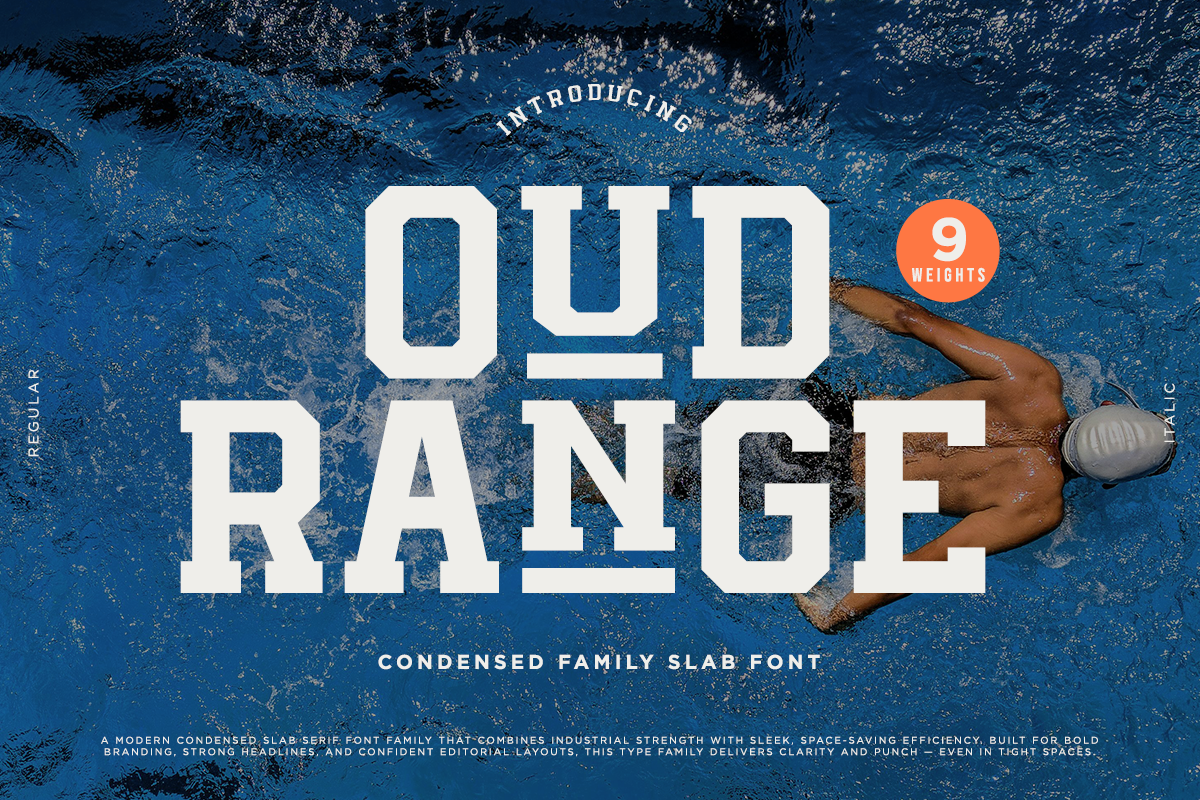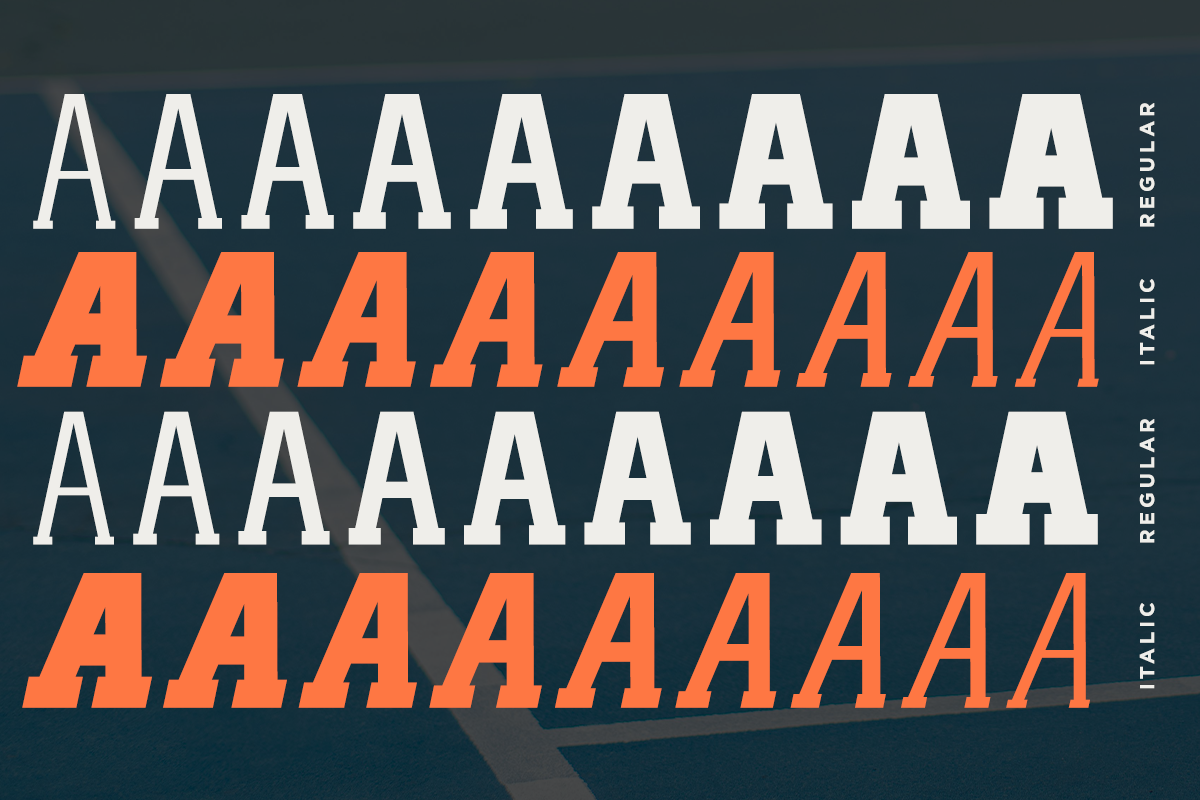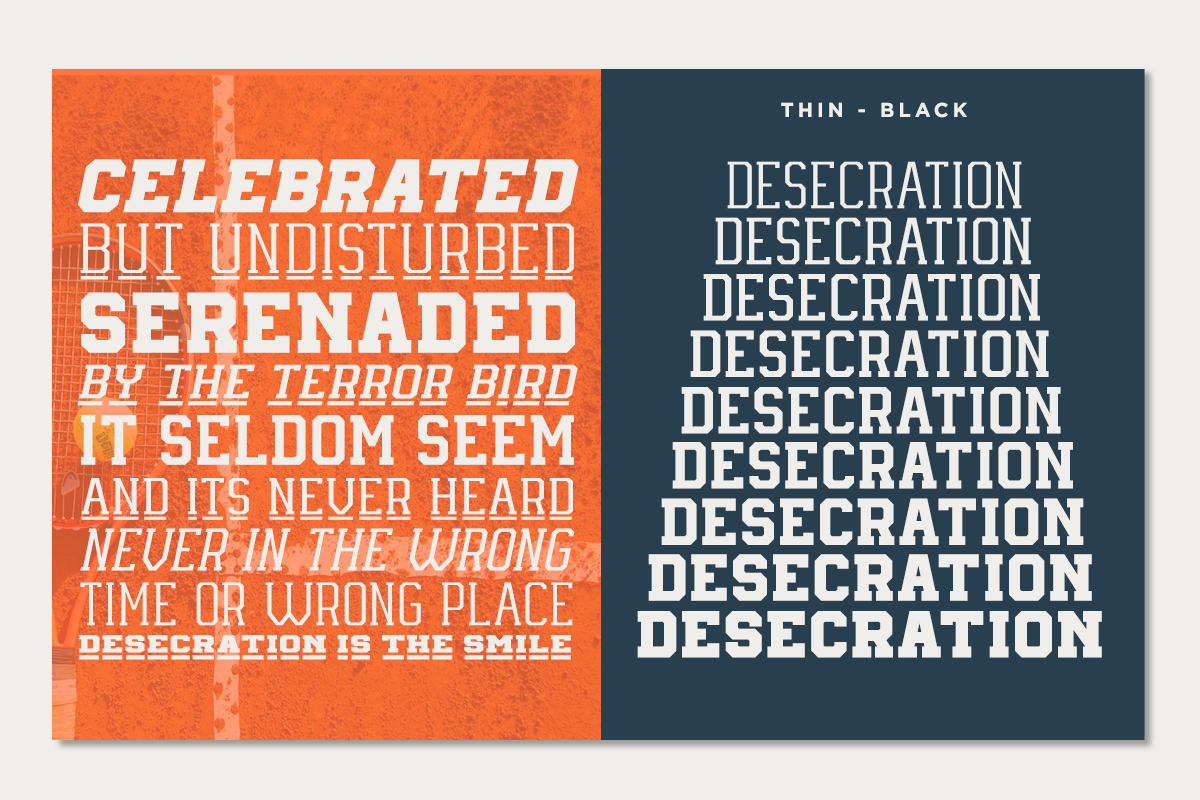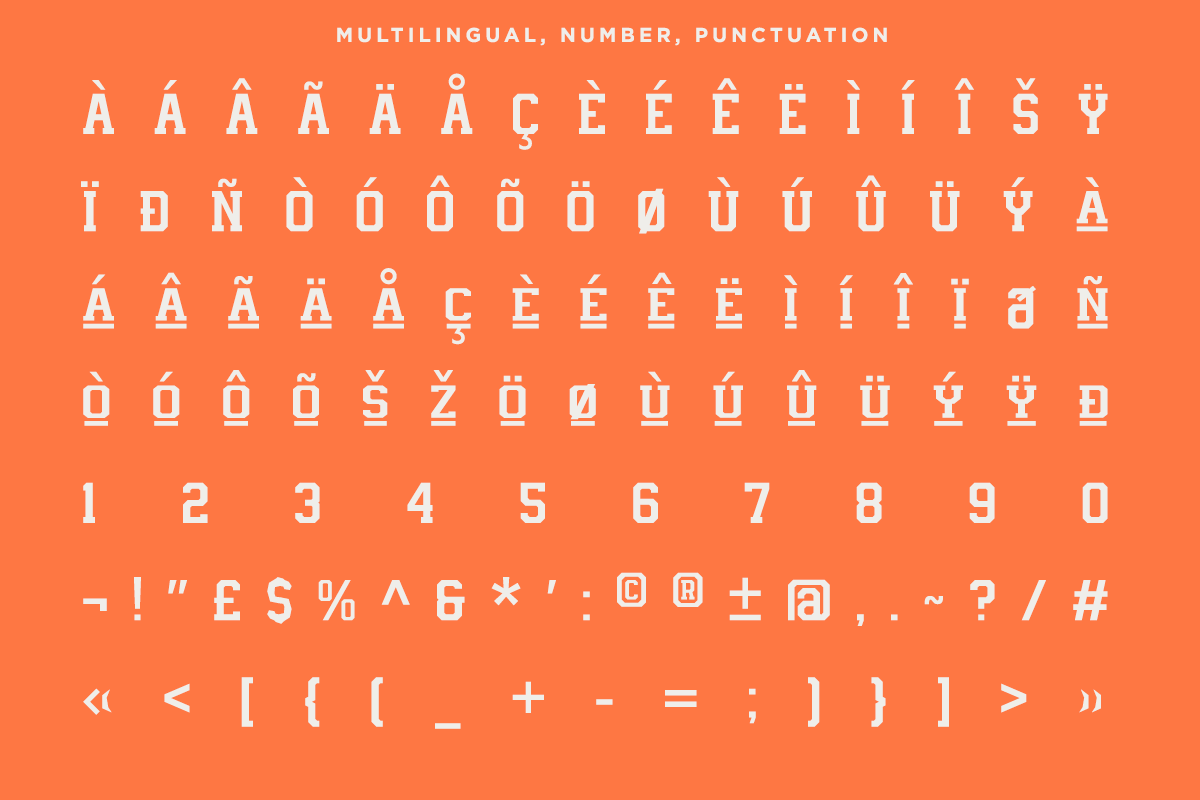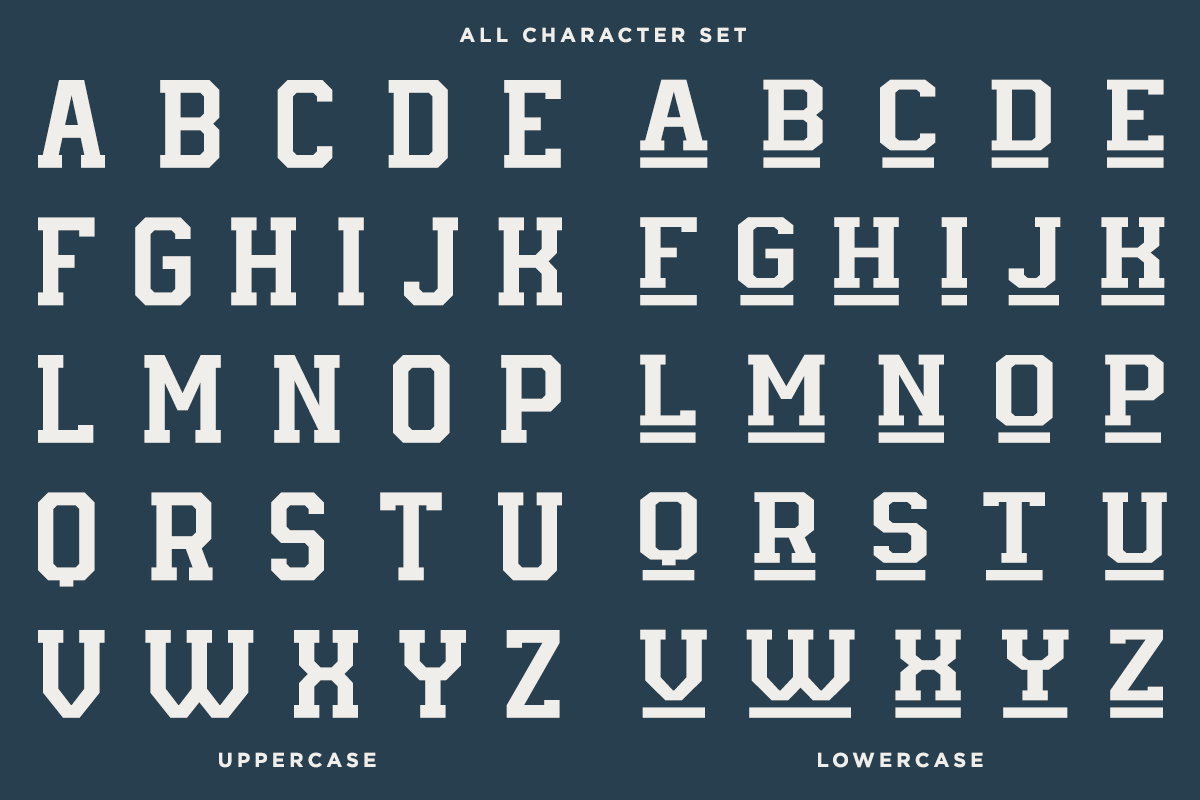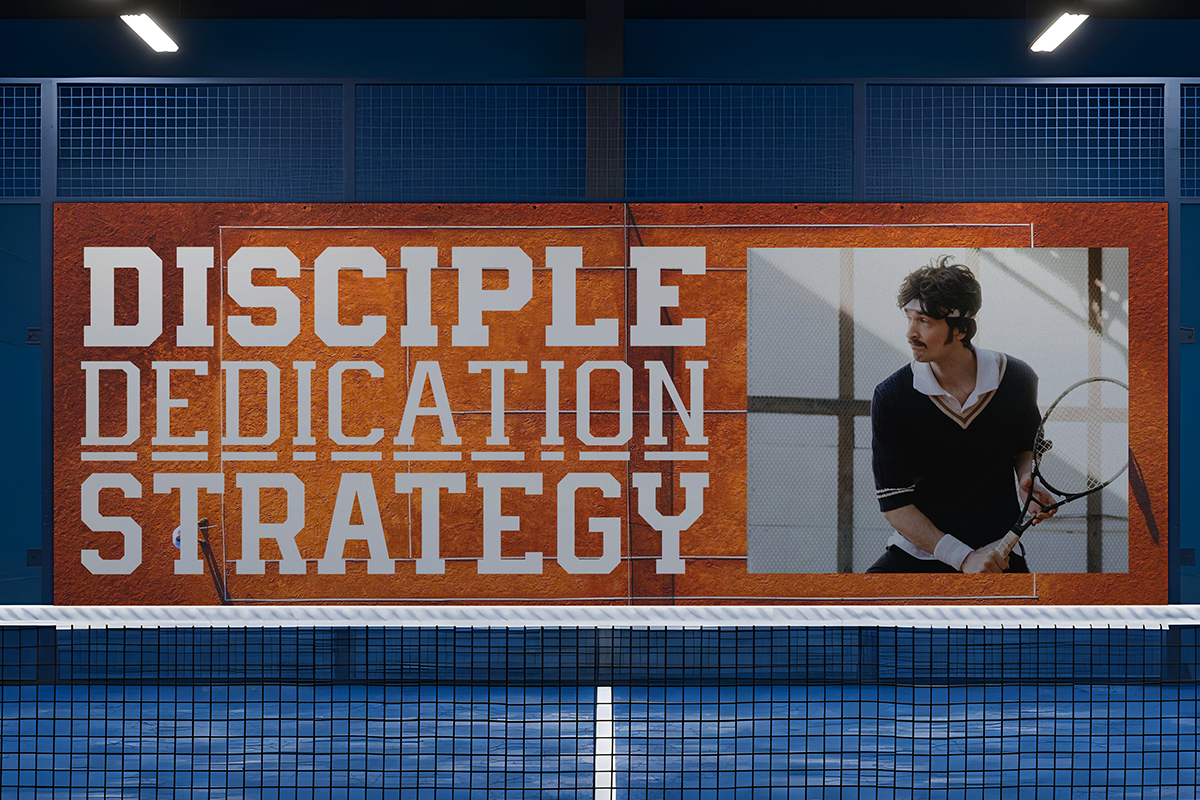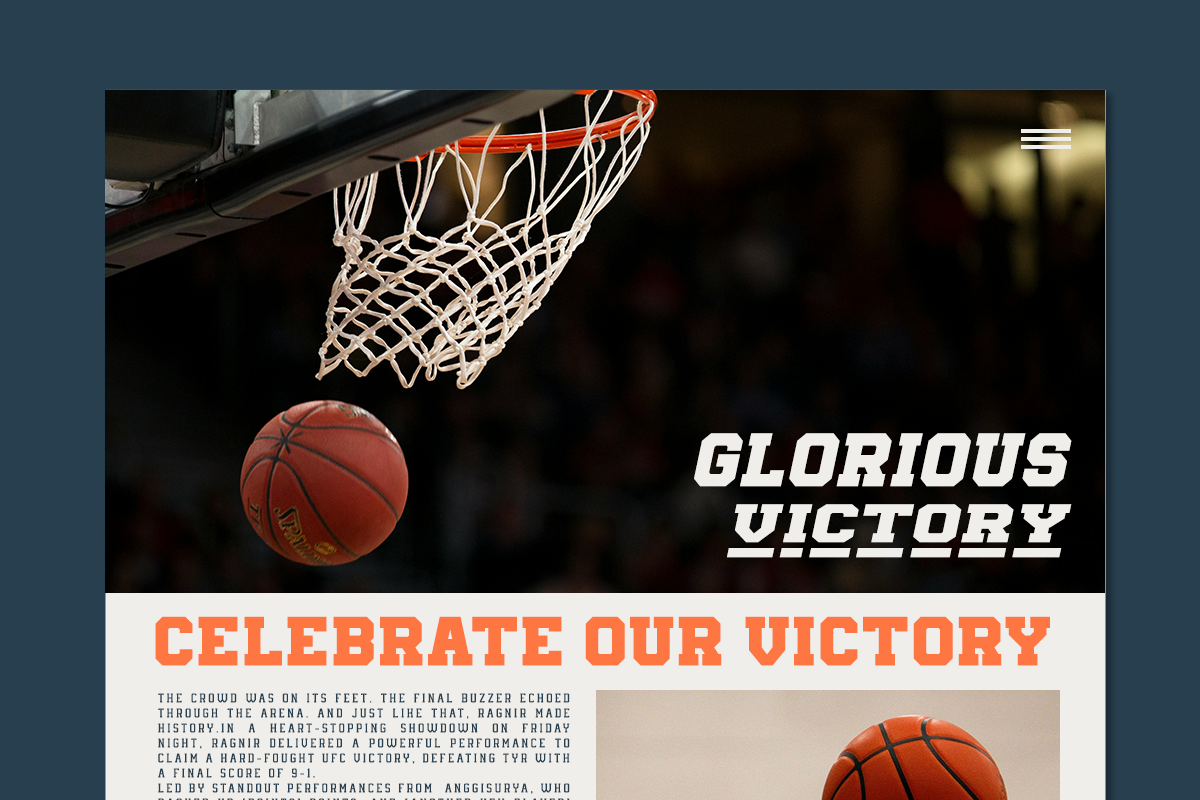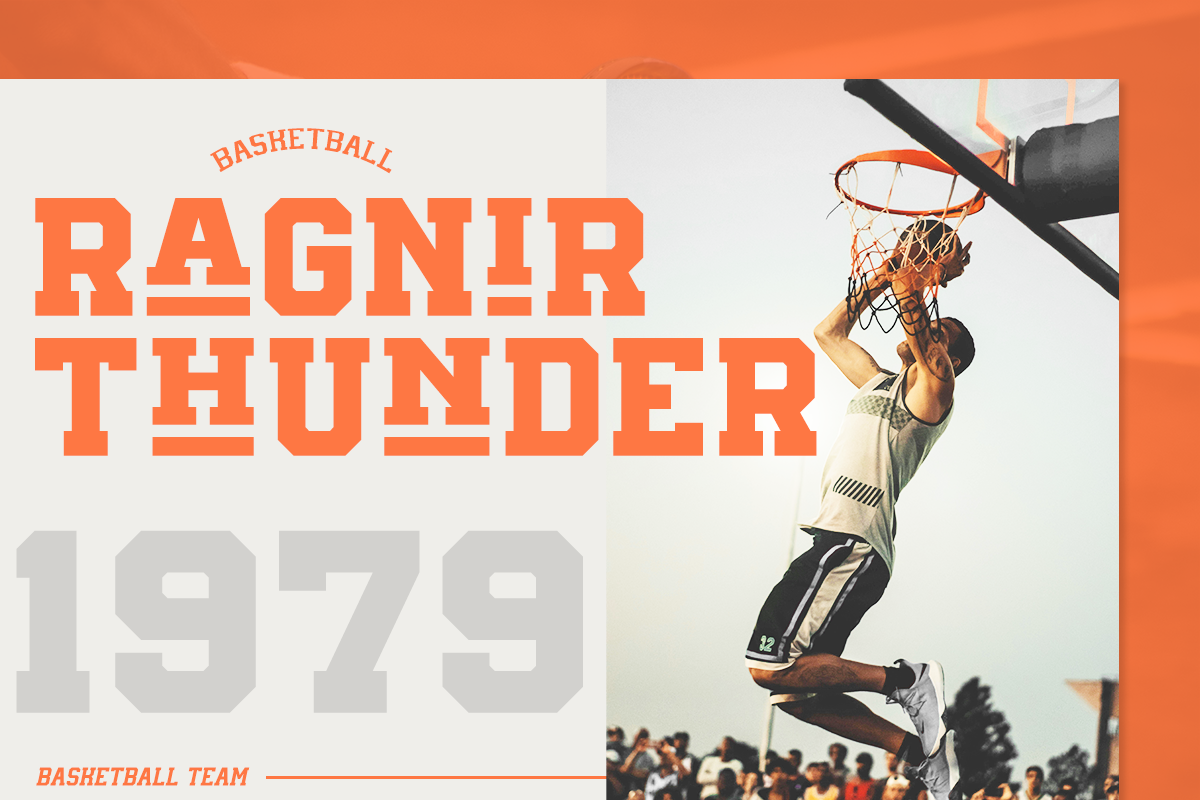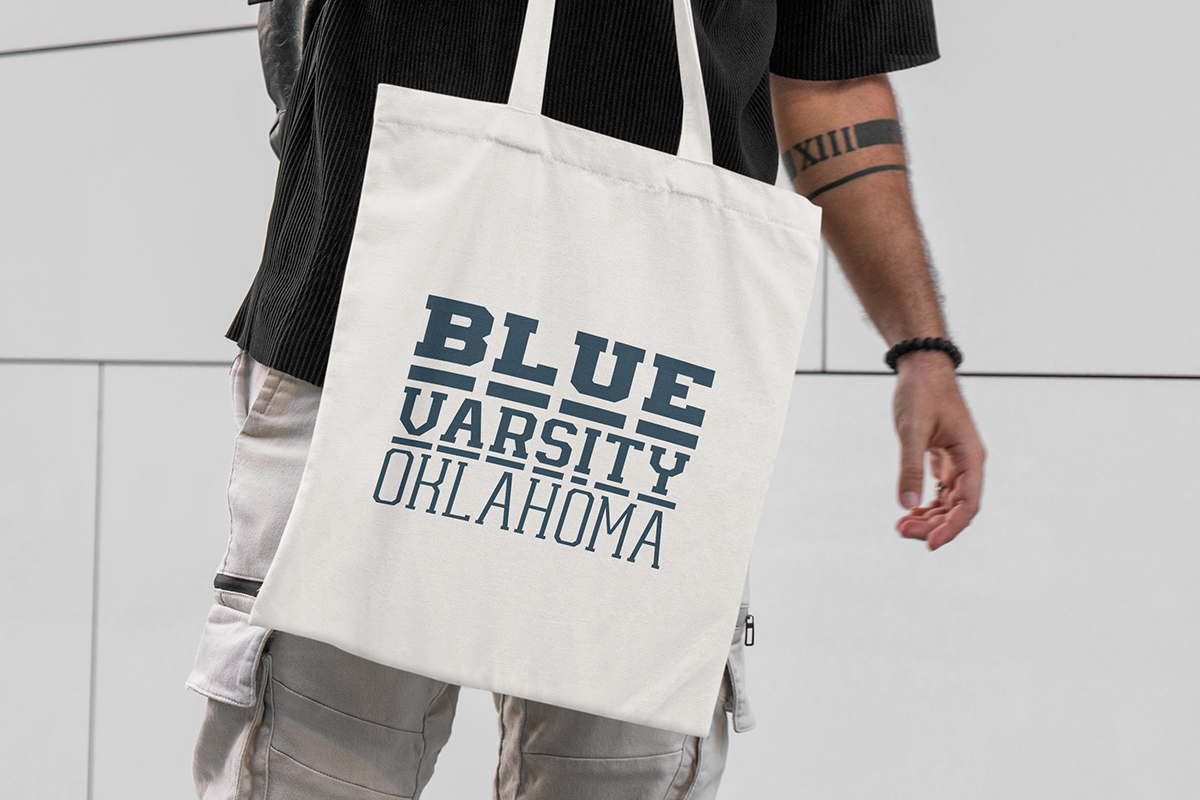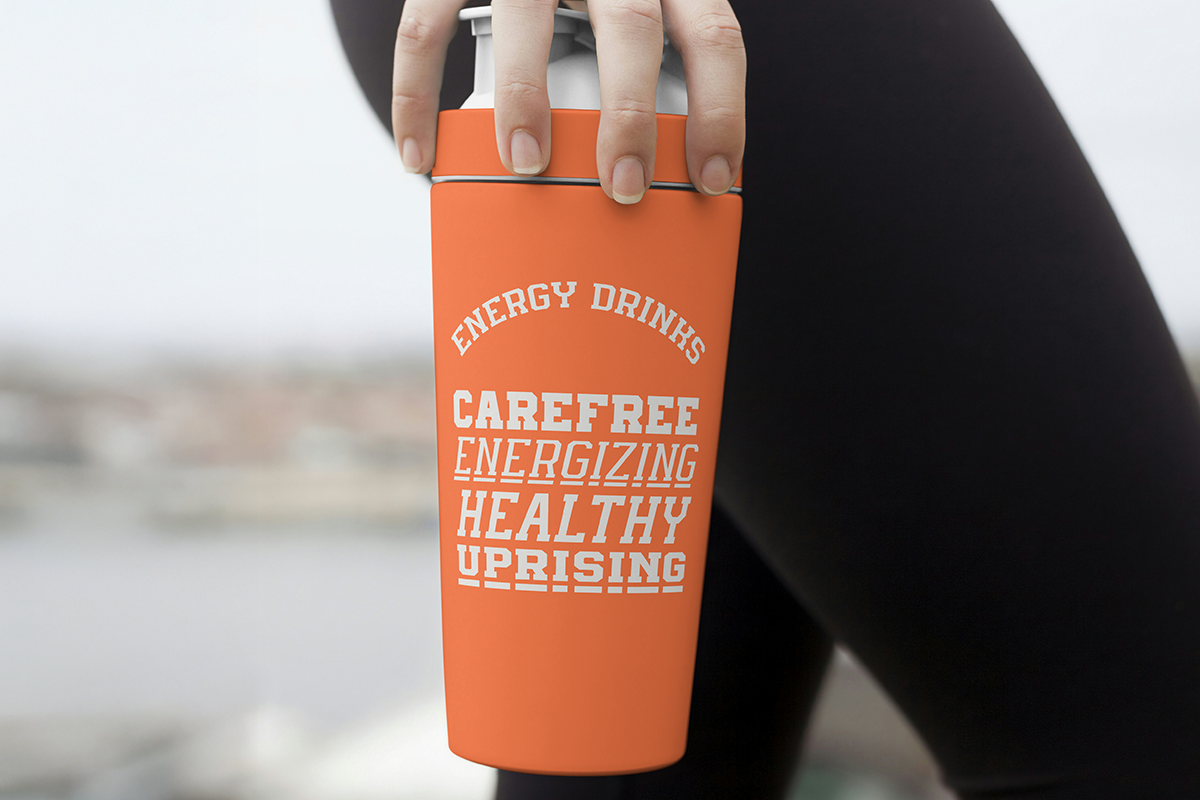
Oud Range - Variable Sport Font
Oud Range is a powerful slab family typeface built for sports branding, motivational posters, athletic apparel, and high-impact headlines. Whether you're creating dynamic event banners, gym gear, or college-style logos, Thunderplay commands attention with its sturdy letterforms, strong vertical lines, and versatile all-caps structure. It’s perfect for designers looking to bring a competitive edge and adrenaline rush into their projects.
- 9 Weights Font Variable